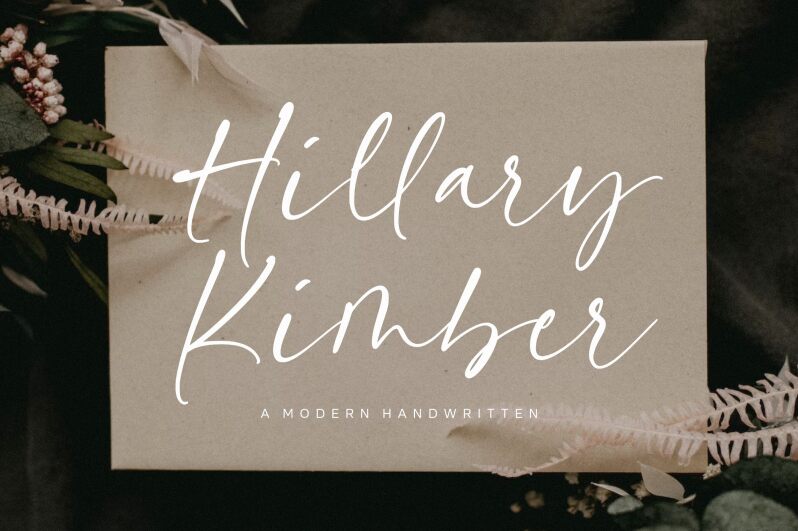
Hillary Kimber
Hillary Kimber font is a free handwritten font designed by Balpirick Studio. This uniquely aesthetic typeface brings an elegant and graceful flow that adds a modern personal touch to any branding, communication, or design project. It is most remarkable for its script inspiration and an overall general sense of refined visual elements.